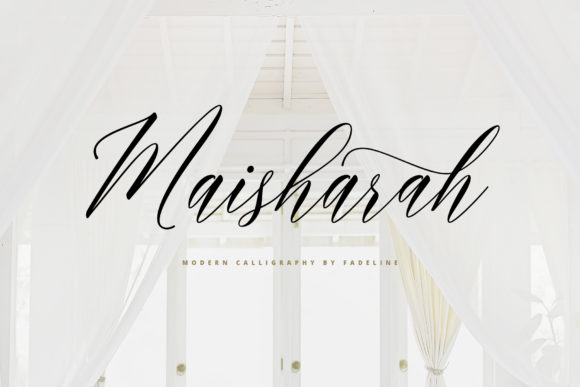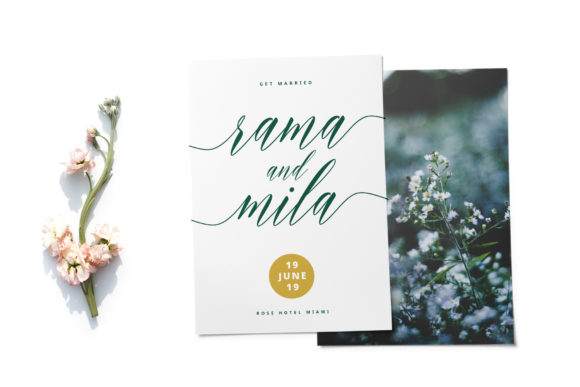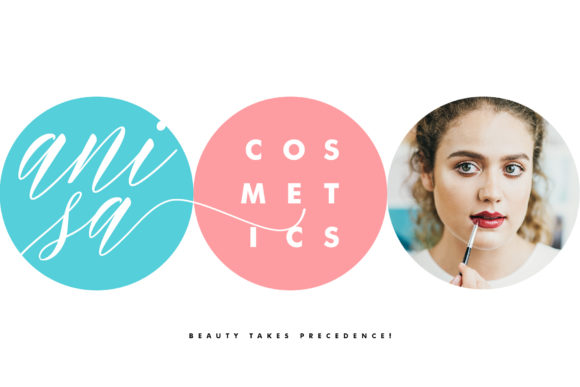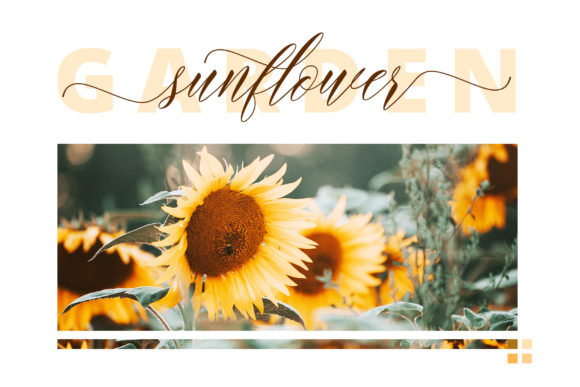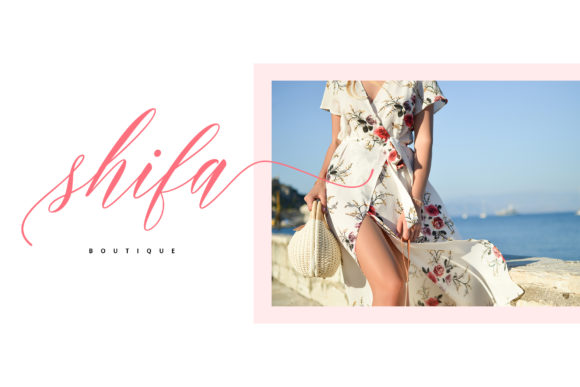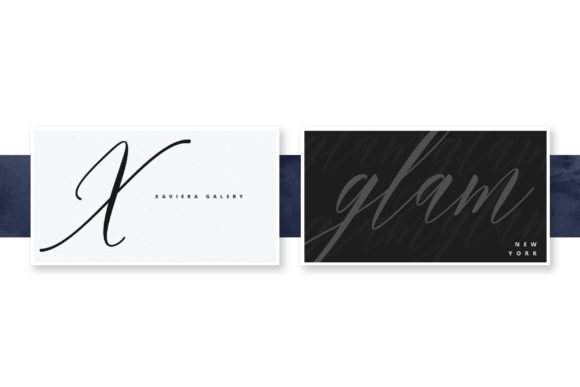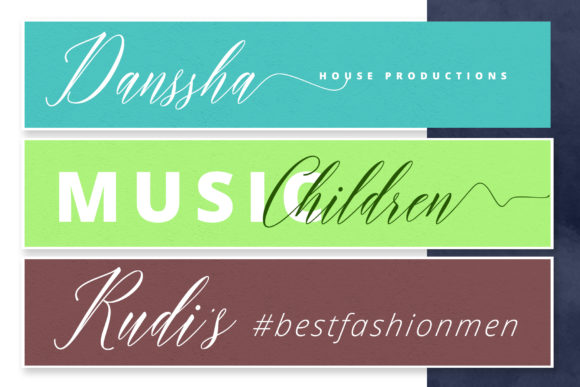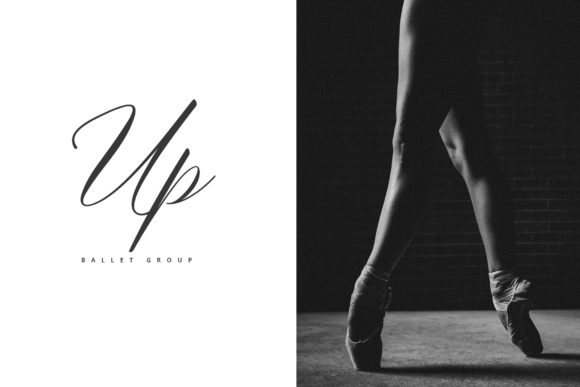
Maisharah Font
About Maisharah Font
Maisharah is a stunning and delicate handwritten font with an incredible style. It will add an authentic feel to any design project!